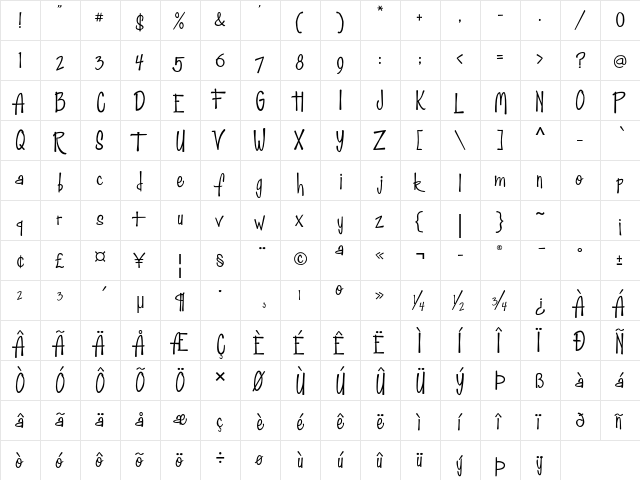
Coolman ITC Std Regular
| Designer | Per Ellstrom |
Design Context for Coolman ITC Std Typeface
Coolman ITC Std is a composed and adaptable typeface that performs quietly and consistently across a wide range of design contexts.